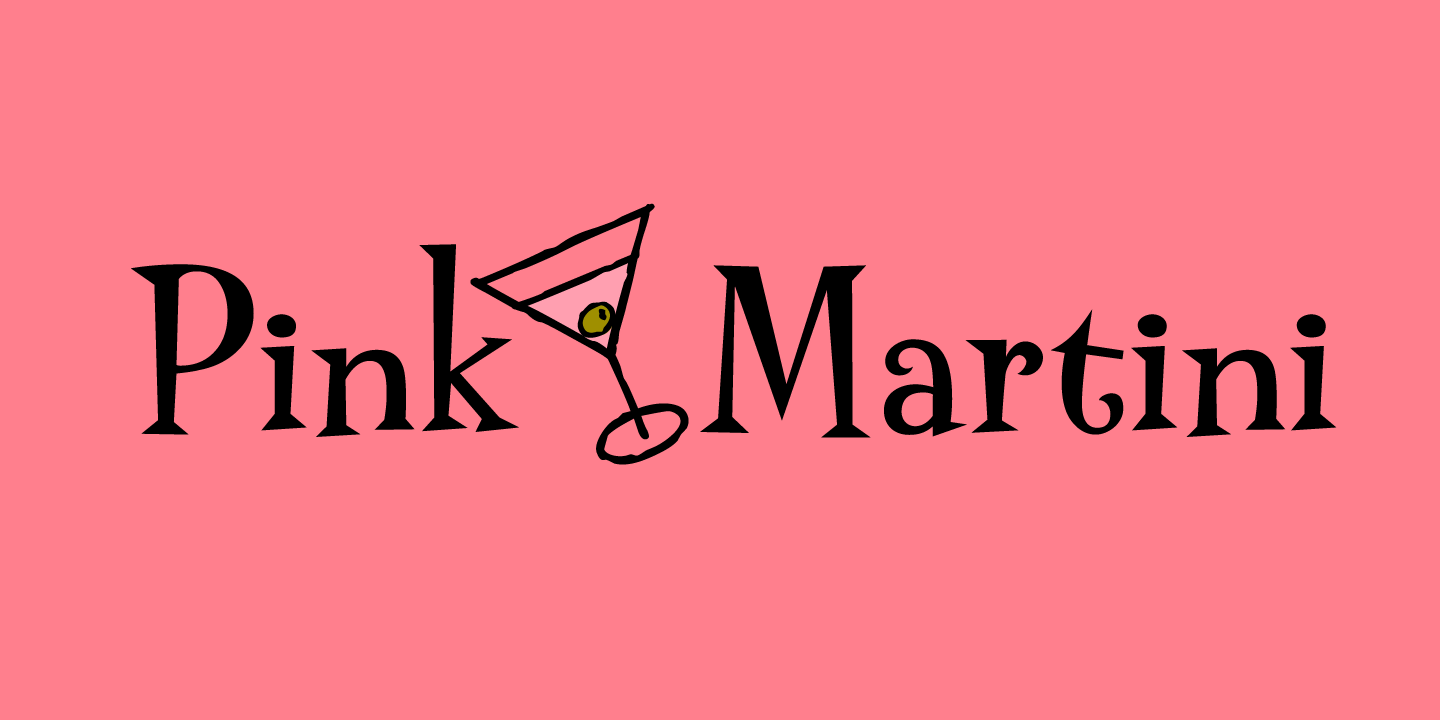
Pink Martini
Font Family by Jess Latham
Versatility abounds with the new Pink Martini family! Includes Pink Martini, Italic, Bold, Bold Italic and fabulous retro Icons! Tipsy stems and playful curls combine to make a really fun retro font family! Bring back the good ol' days in your designs!